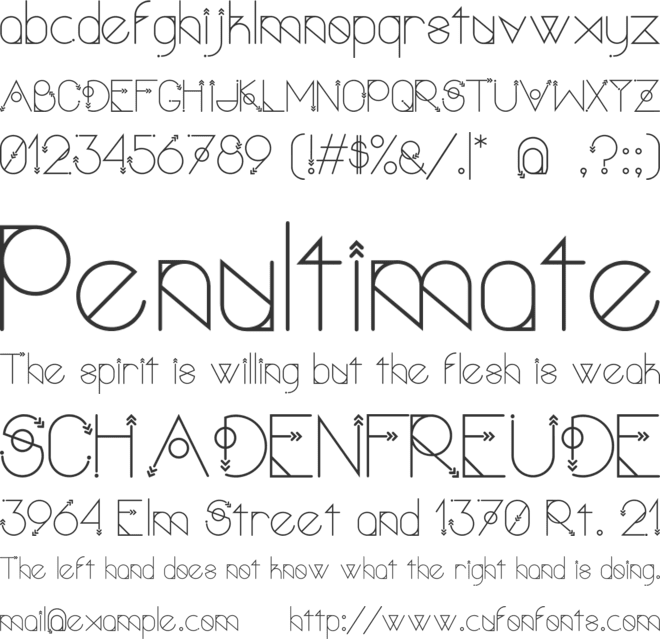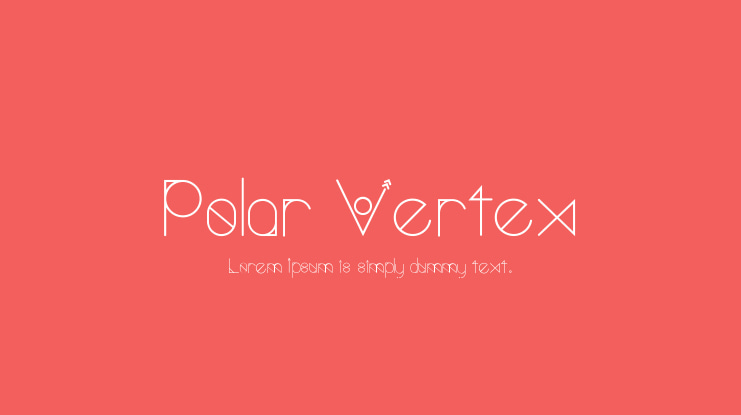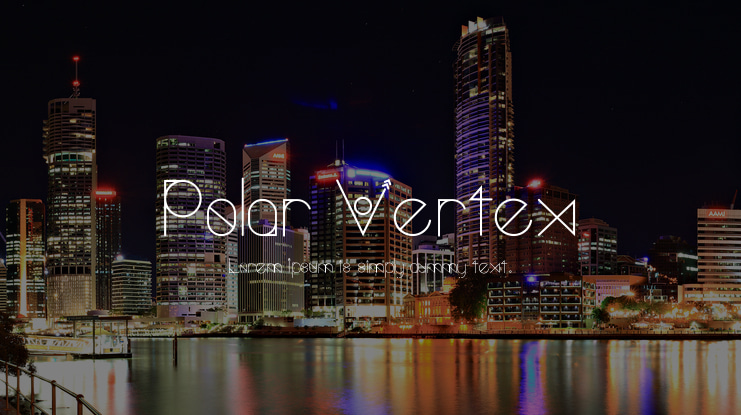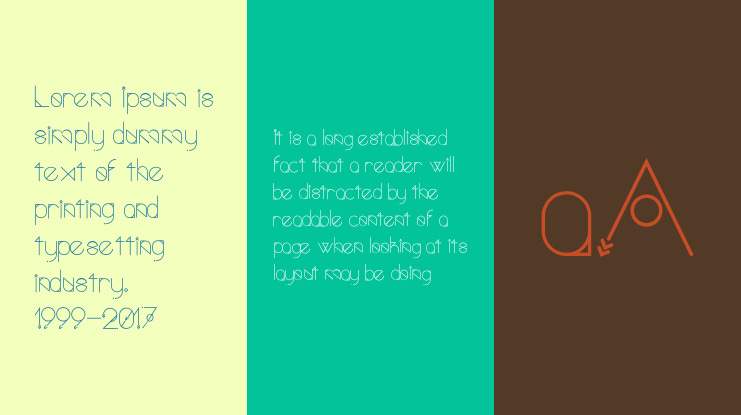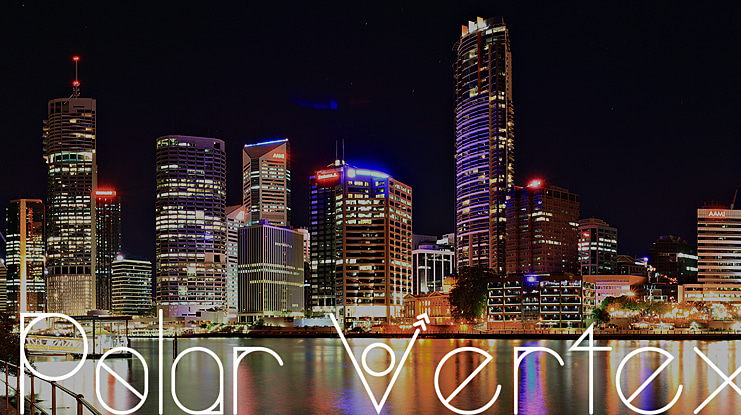
Polar Vertex Font
Polar Vertex is a new display typeface that inspires dreamers and free-thinkers. With a slightly nautical, celestial, and geometric design, it is quite diverse. This typeface should be used primarily as a display font, as the details get lost as the size decreases.